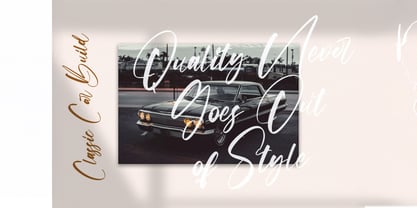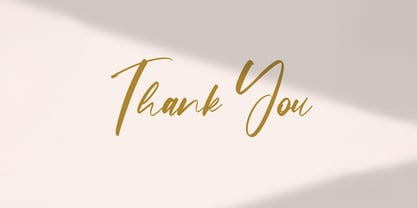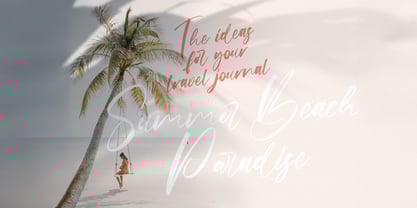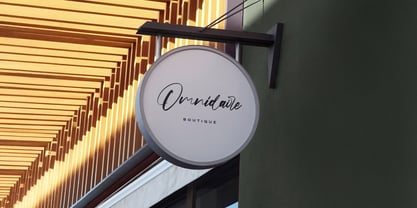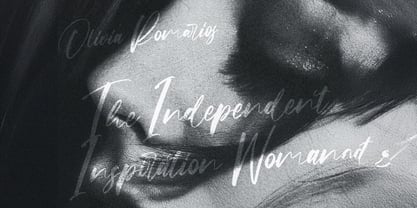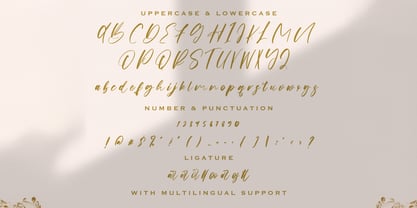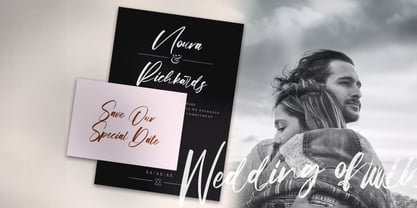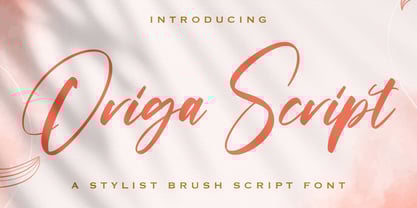
Origa Script
by Stringlabs Creative Studio
The Origa Script Font Family was designed by Virgiawan Listanto and published by Stringlabs Creative Studio. Origa Script contains 1 styles.
Origa Script is a smooth and stylish handwritten font inspired by the graceful flow of ink on paper. With its elegant curves and natural rhythm, this font brings a sense of creativity and sophistication to any design. Perfect for branding, stationery, and social media, Origa Script blends artistry and clarity making your message feel personal and beautifully crafted.
Designers: Virgiawan Listanto
Publisher: Stringlabs Creative Studio
Foundry: Stringlabs Creative Studio
Design Owner: Stringlabs Creative Studio